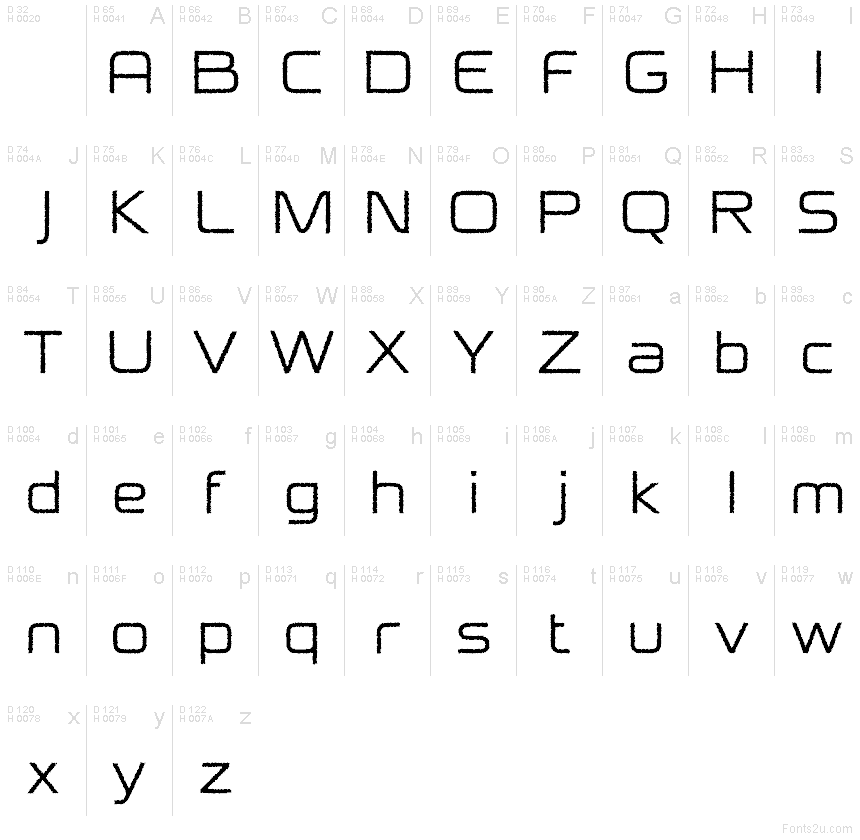
Megatrans Rough Regular Demo
Megatrans Rough font by Craft Supply Co. embodies a modern aesthetic with an eroded, textured appearance. This display font stands out with its futuristic, techno-inspired design and expanded width, presenting a distinctive and unconventional styling that captures attention instantly.